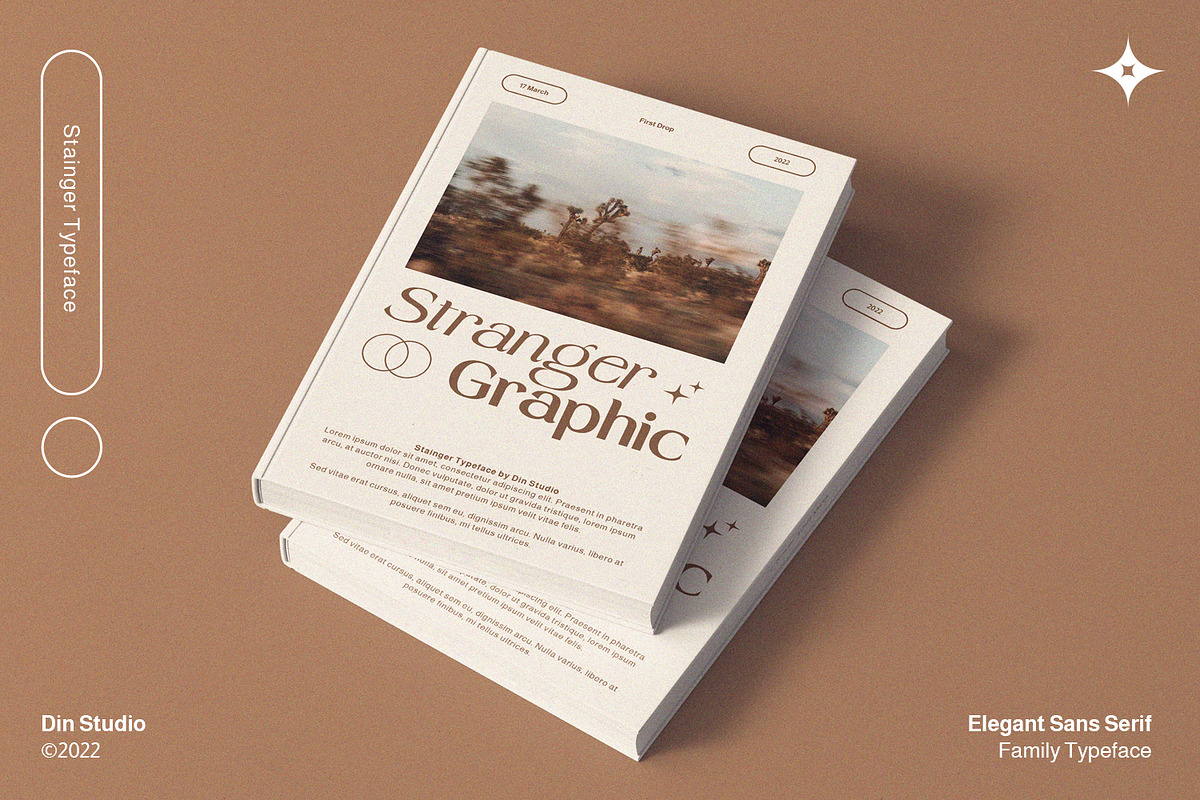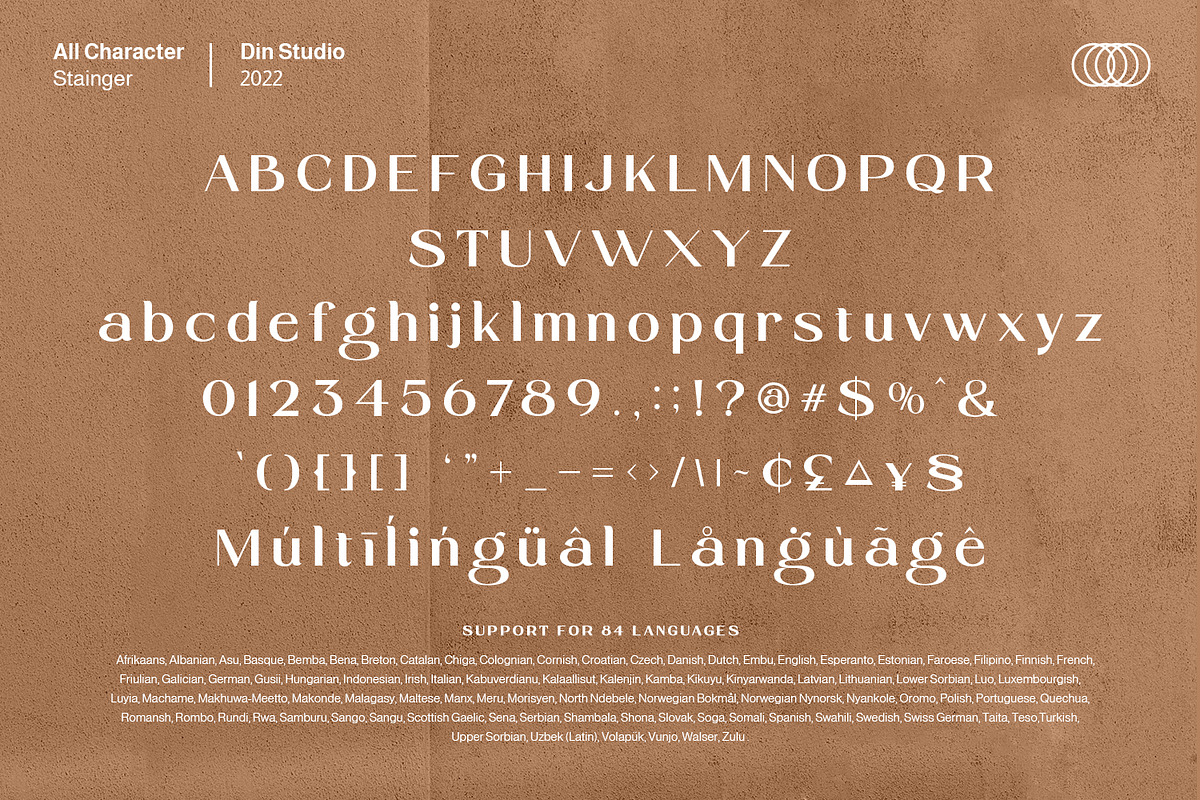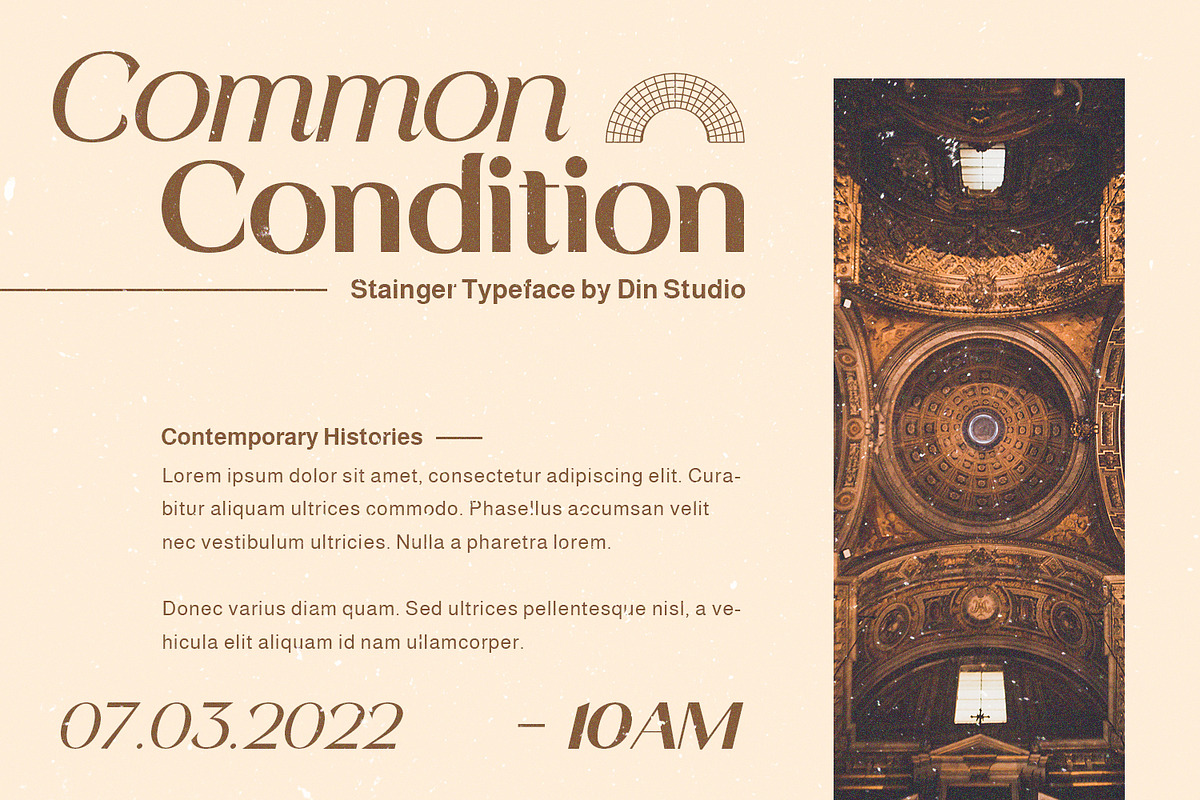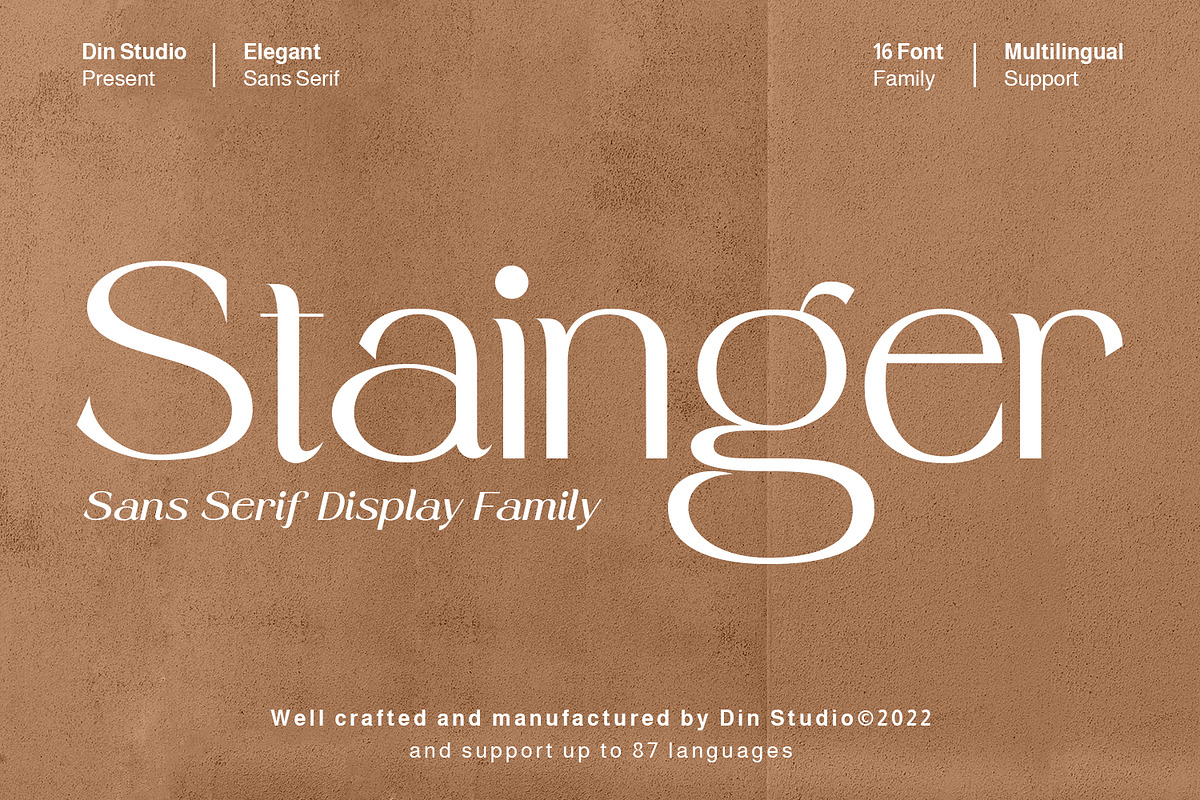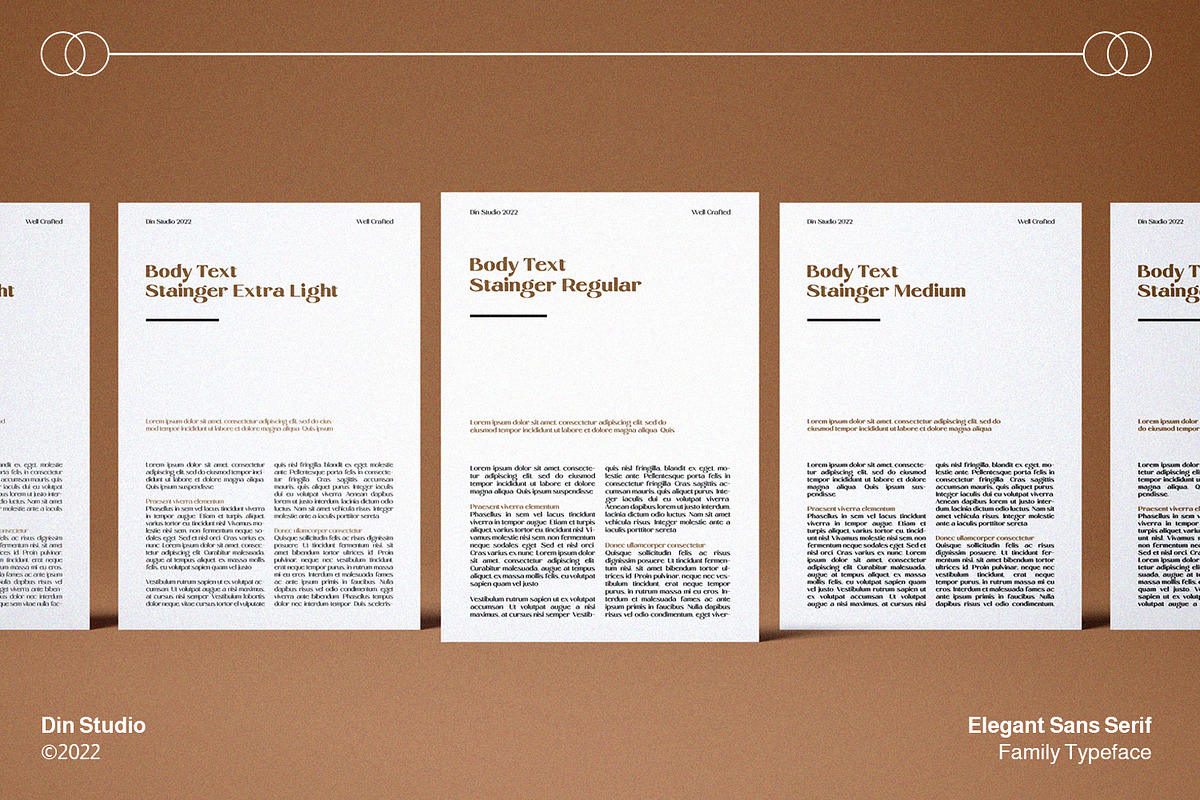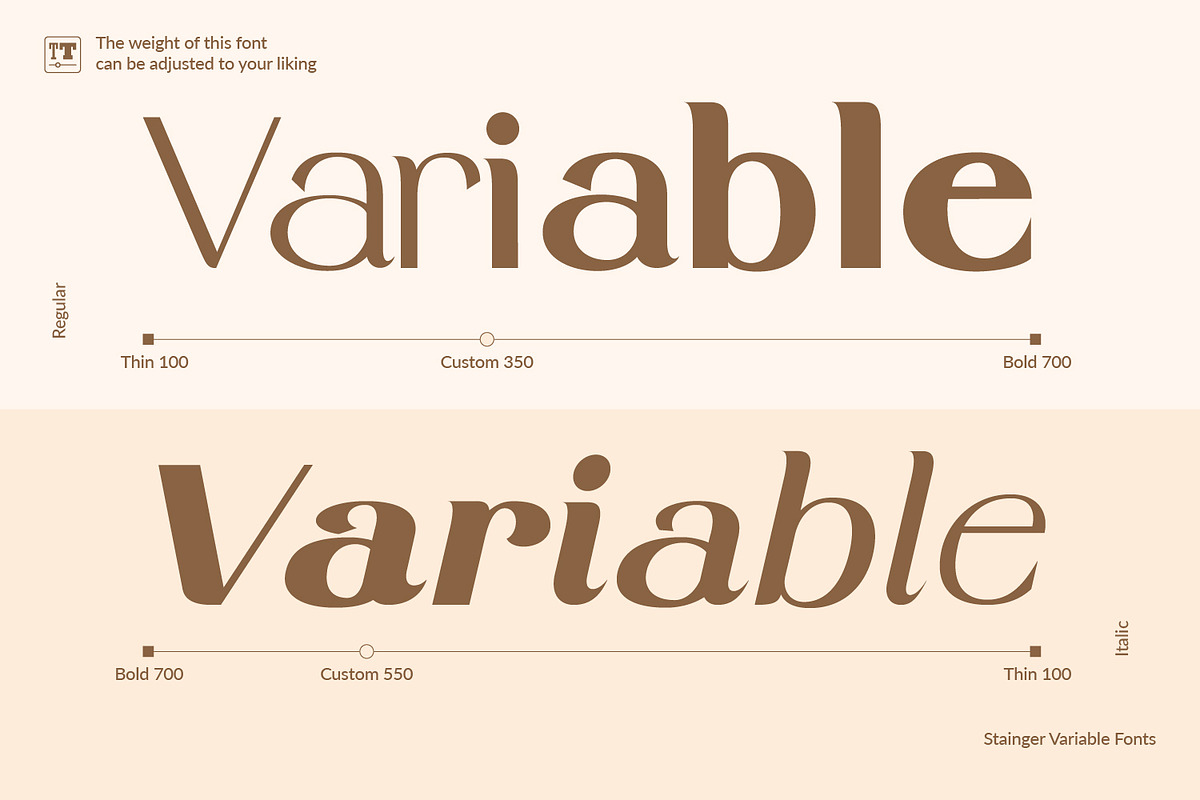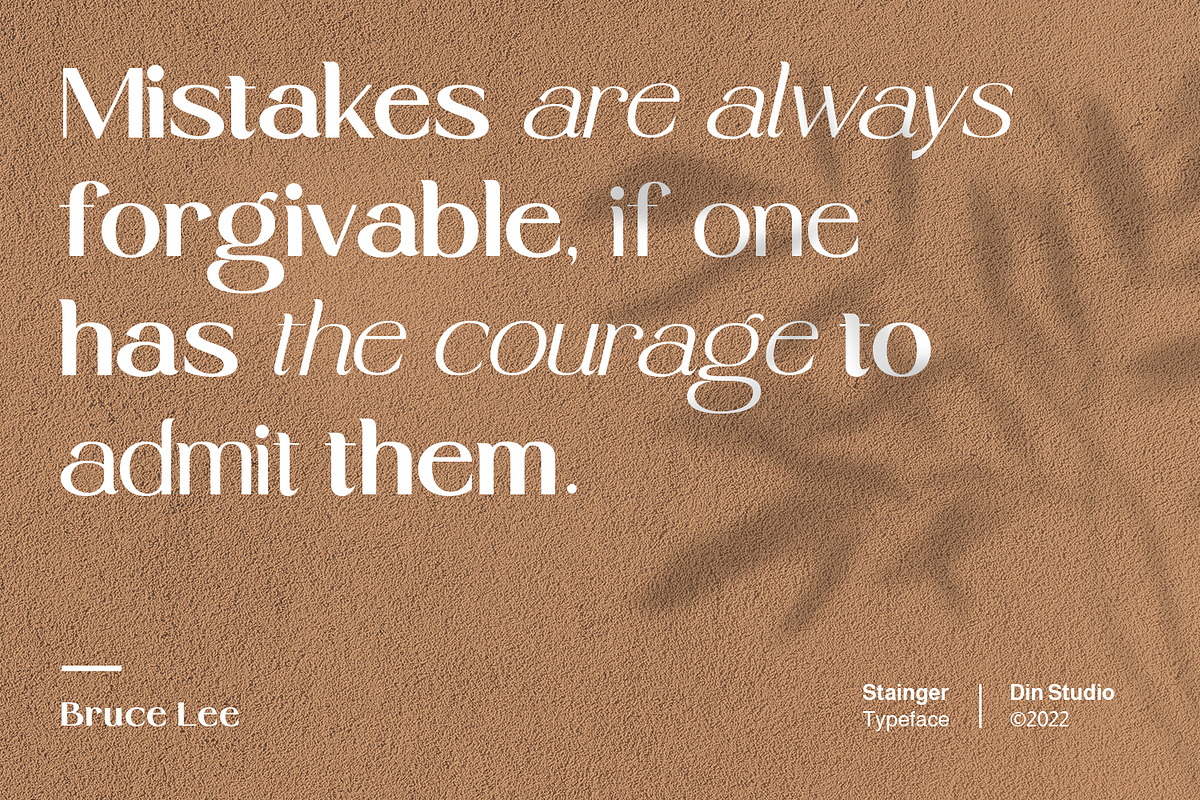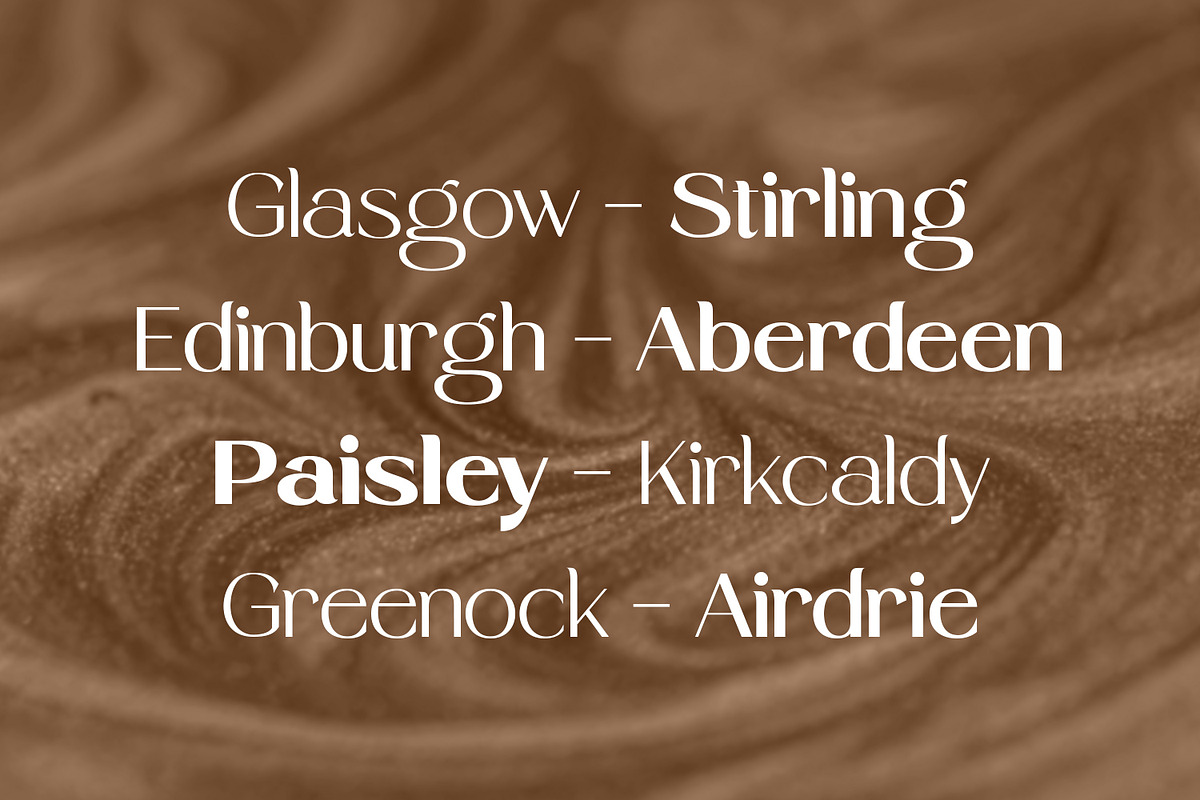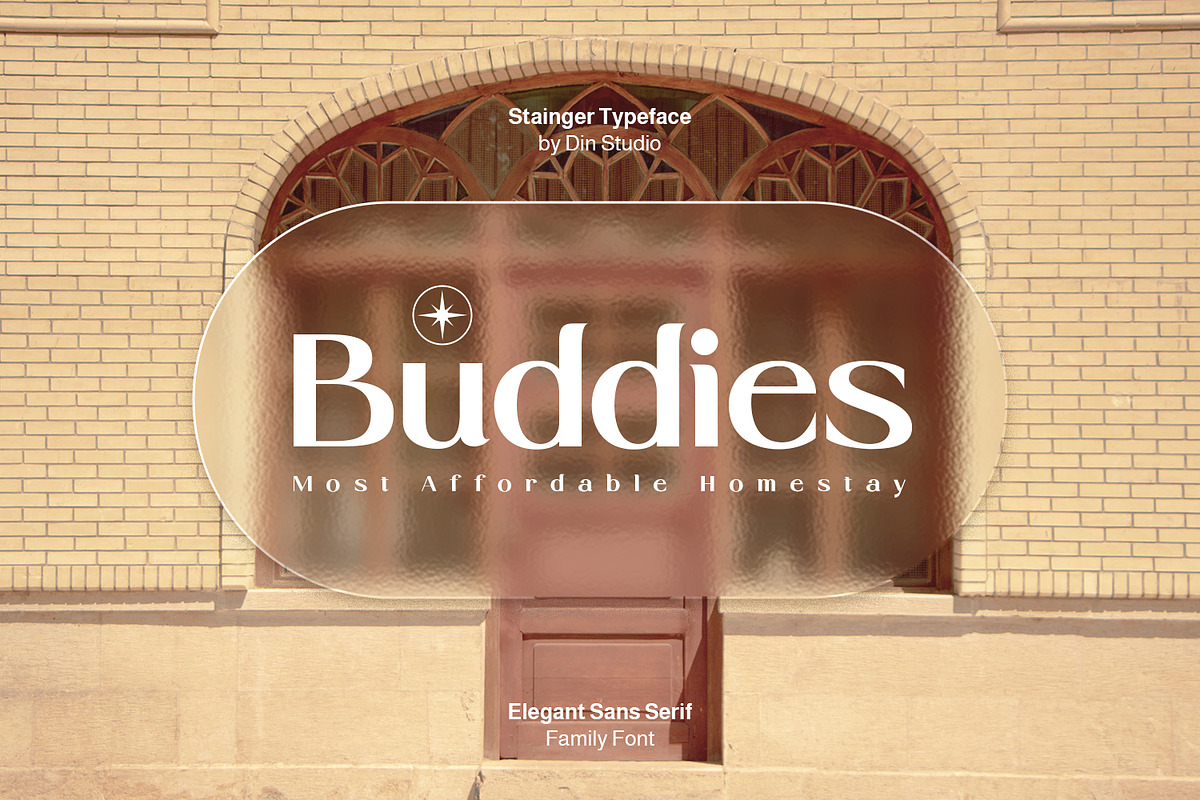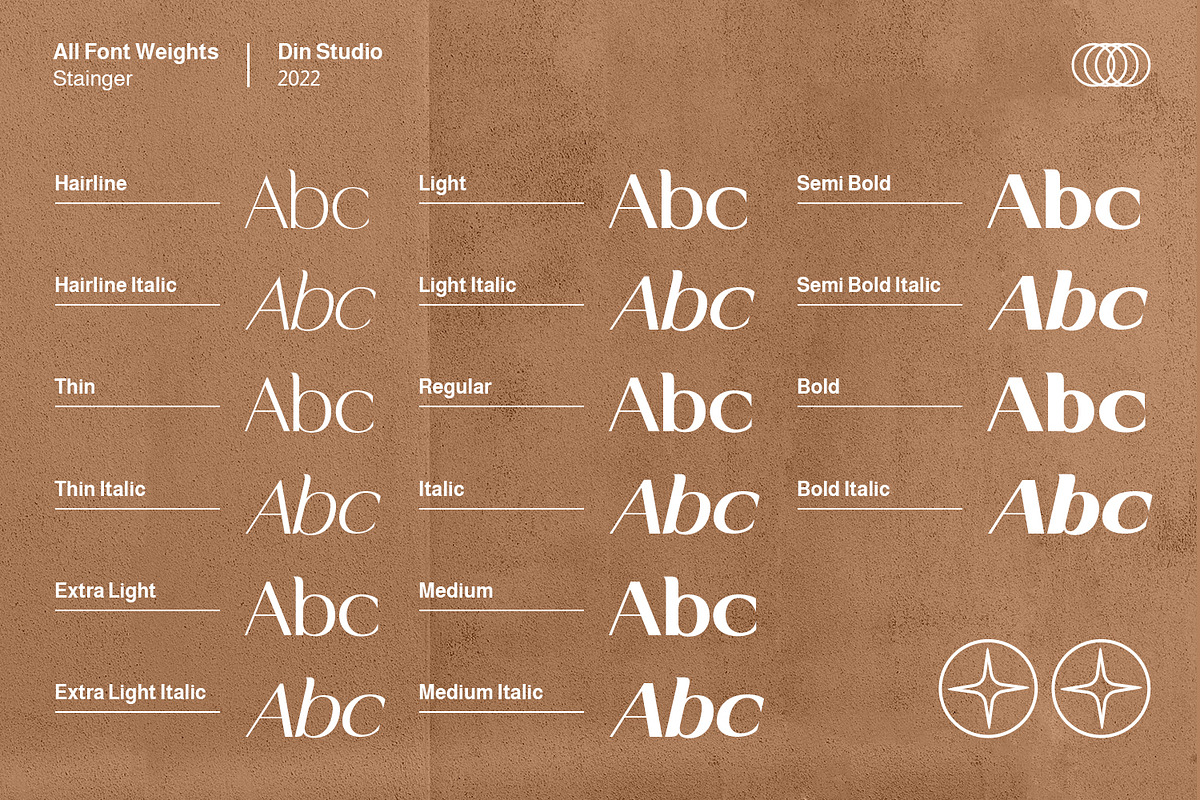
Stainger
The art of accumulation.
Thoughtfully crafted to meet the needs of all users, Stainger unfold new ways of expressing and enhance your design. A font family that portrays simple, serene yet modern style. Stainger comes with 16 different weight, covering light, heavy, italic, and other stylings. It is simple, easy to read, and works equally as well in header and body text.
It is perfectly used for branding, logos, social media quotes, stickers, posters, vintage designs, wall art, merchandise, social media, and many more. Get more inspiration by seeing the preview.